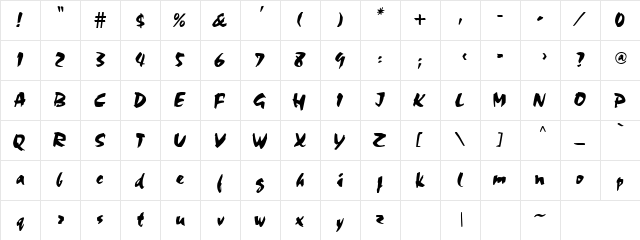
Melrose Regular Free Font
Melrose Regular
Design Context for Melrose
Melrose is a composed and adaptable typeface that performs quietly and consistently across a wide range of design contexts.